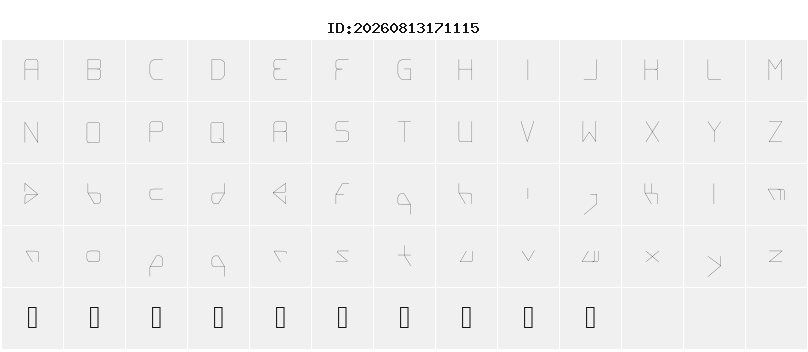
REGARD Preview
• Font Name: REGARD
• Font ID: FontForge 2.0 : REGARD : 25-2-2012
• Full Font Name: REGARD
• PostScript Name: REGARD
• Character Count: 53
About REGARD.ttf
REGARD.ttf is a modern, elegant sans-serif font designed for ultimate readability and visual harmony. Perfect for branding, headlines, web design, and print materials.